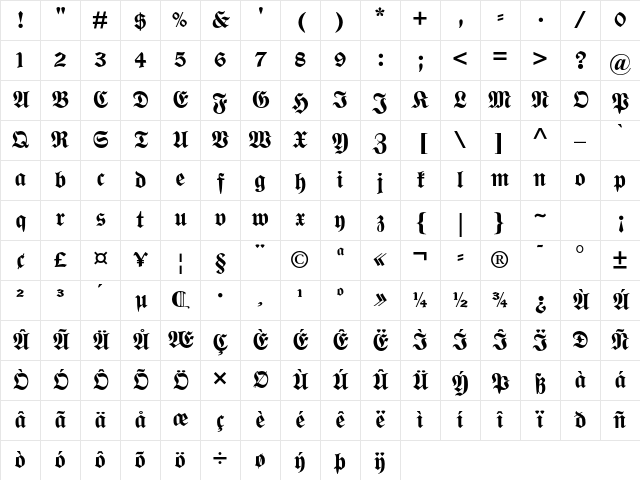
Complete Wittenberger Fraktur MT Std Bold glyph index. Displaying only characters natively supported by Wittenberger Fraktur MT Std Bold font.
Wittenberger Fraktur MT Std draws on the rich tradition of blackletter calligraphy, with dense, angular strokes that evoke medieval manuscripts and old-world craftsmanship. Its bold stroke weight gives it real presence on the page.
Font Pairing: Pair with a clean neutral sans-serif for body copy to let Wittenberger Fraktur MT Std's character lead without overwhelming the composition.
Pro Tip: Reserve Wittenberger Fraktur MT Std for display and logo use - pair it with a clean sans-serif for body copy to prevent the composition from feeling oppressive.